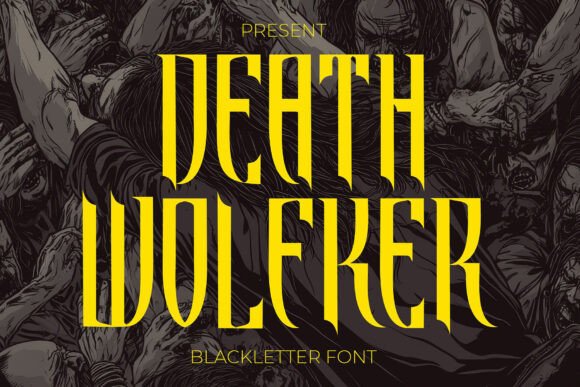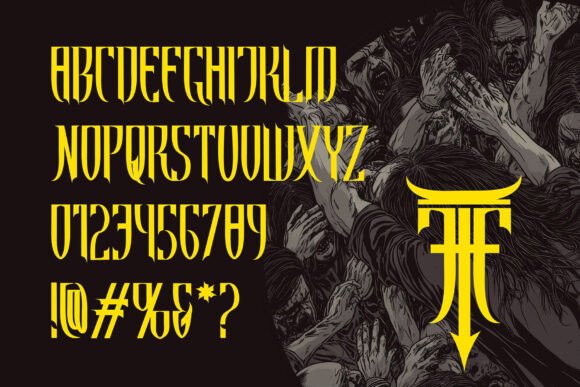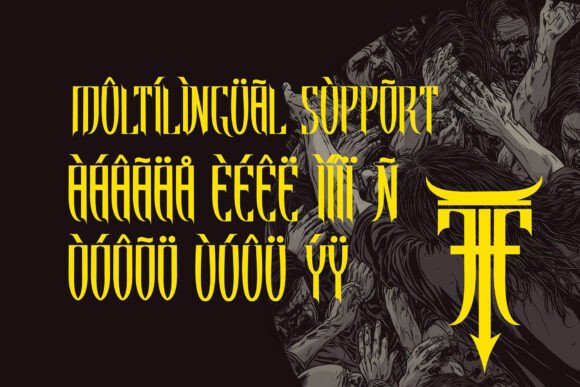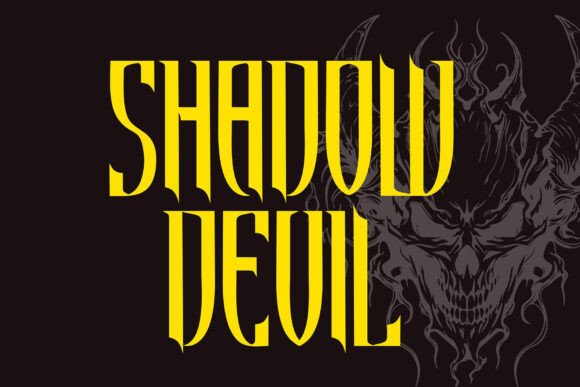
Death Wolfker Font
About the Death Wolfker Font
Explore the possibilities with Death Wolfker Font, a font that offers both beauty and functionality. Immerse yourself in the mysterious world of Death Wolfker – a sharp and stylish Blackletter font that brims with intensity. With its skinny, razor-sharp strokes and intricate detailing, it brings an intriguing aura to each project. Hinting at the gothic and eerie, its precise edgy feel is a fit for those designs that flirt with darker themes. Whether you’re crafting a brand identity, an album cover, a poster or playing with a medieval or spectral theme, Death Wolfker steps in with unmatched class and elegance. Infusing each creative project with a bold and sophisticated flair, it stirs the traditional grace of Blackletter fonts into a contemporary, cutting-edge aesthetic. Unleash the power of Death Wolfker and let your designs tell a compelling story.
Death Wolfker Font Usage Examples
Death Wolfker Font Example